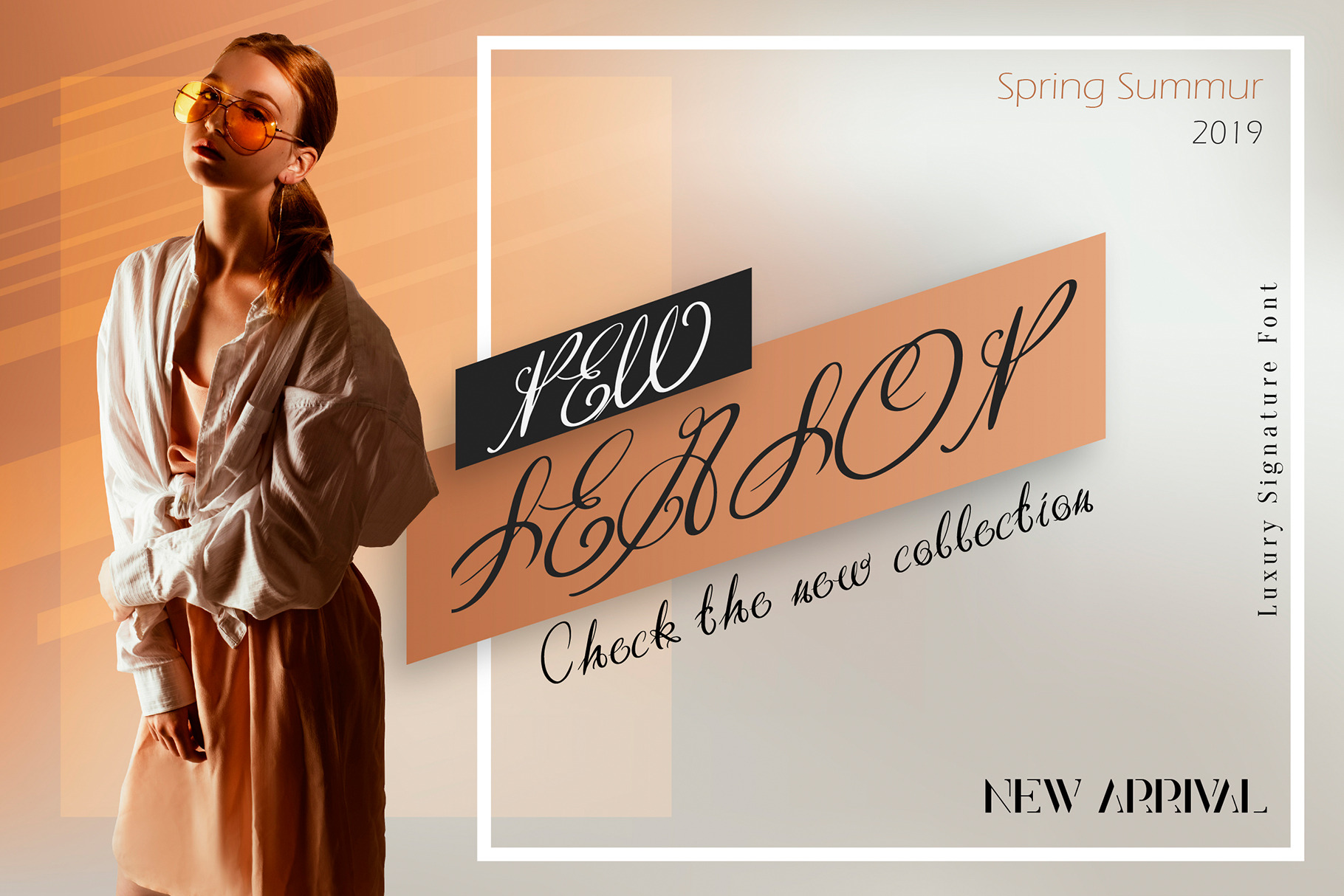
Efeymen Luxury Signature Font
With this magnificent font, which is completely hand-drawn, you will give your work an extraordinary design. Ideal for creating a logo. All weeks and numbers have SVG extensions.
You can be sure that your work will be a great inspiration.